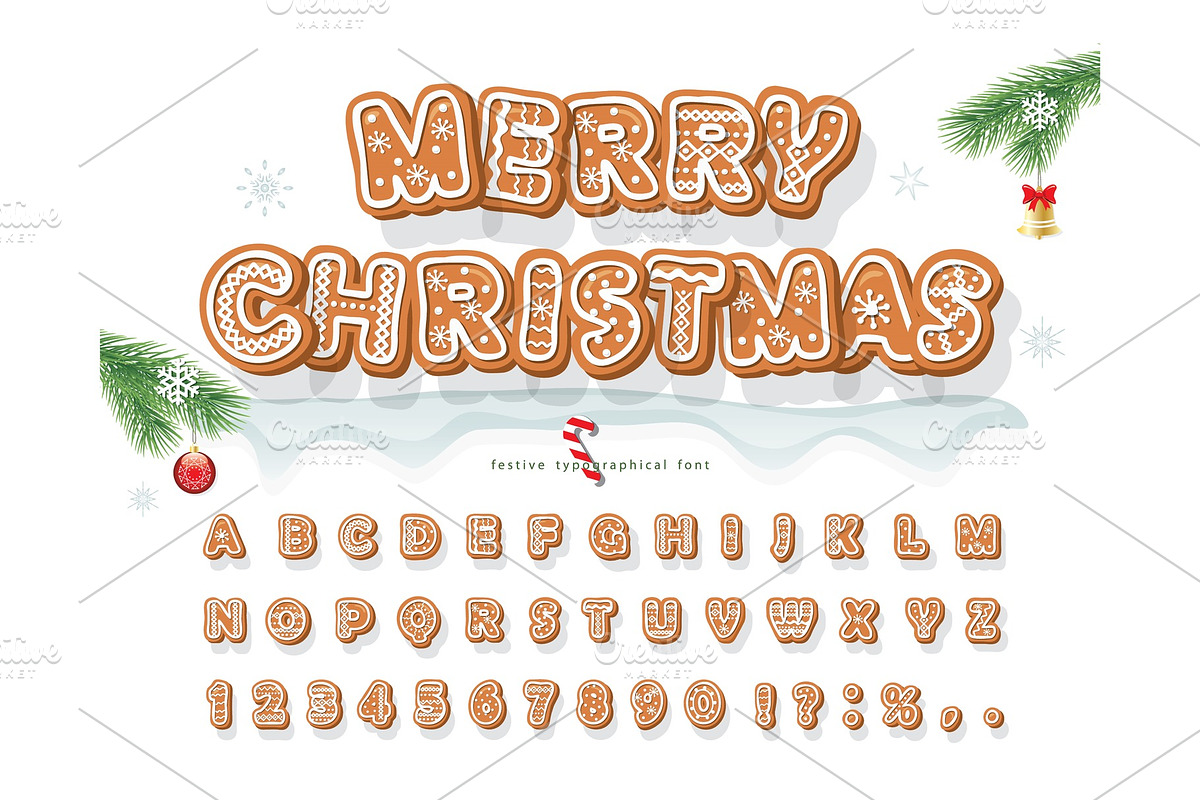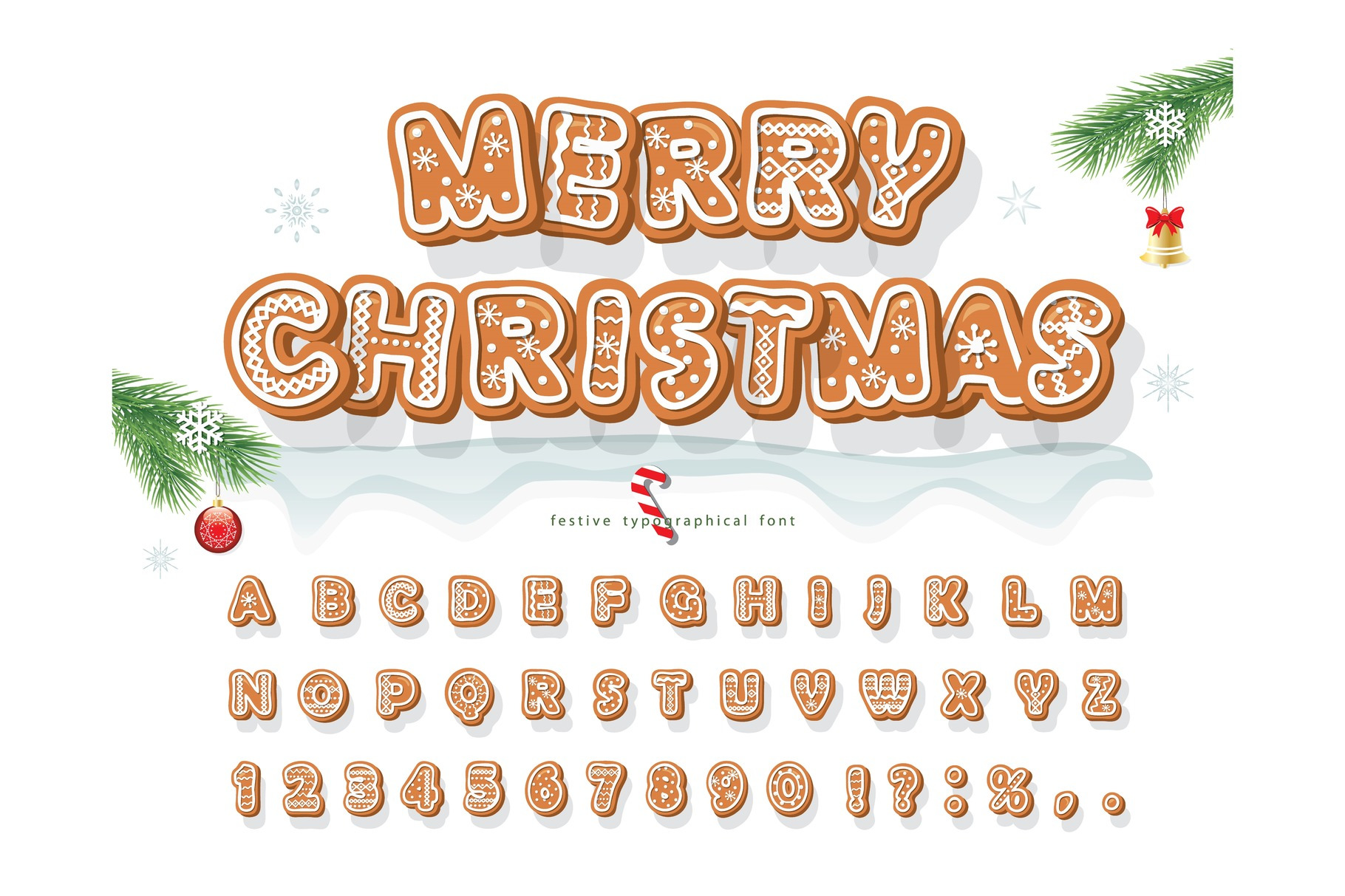
Christmas Gingerbread font
Christmas Gingerbread Cookie font. Biscuit traditional decorative alphabet. Hand-drawn cartoon colorful letters, numbers, and symbols for holiday design.